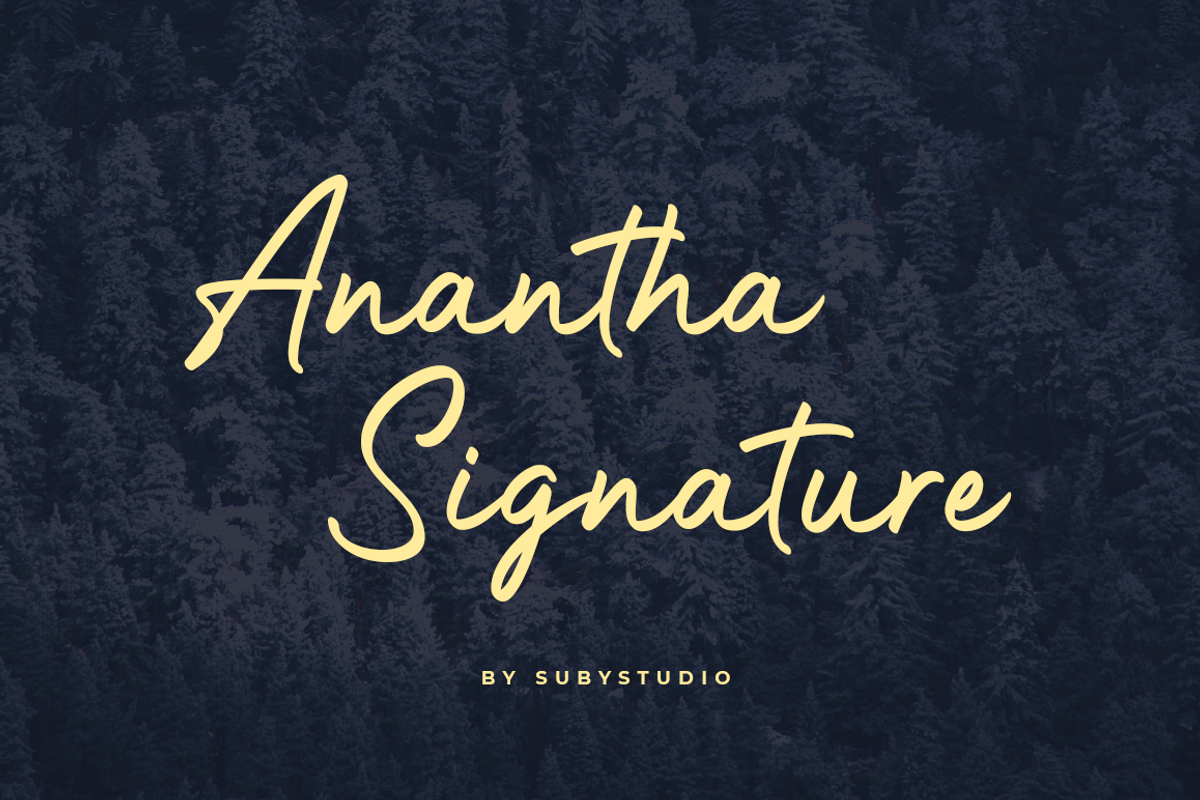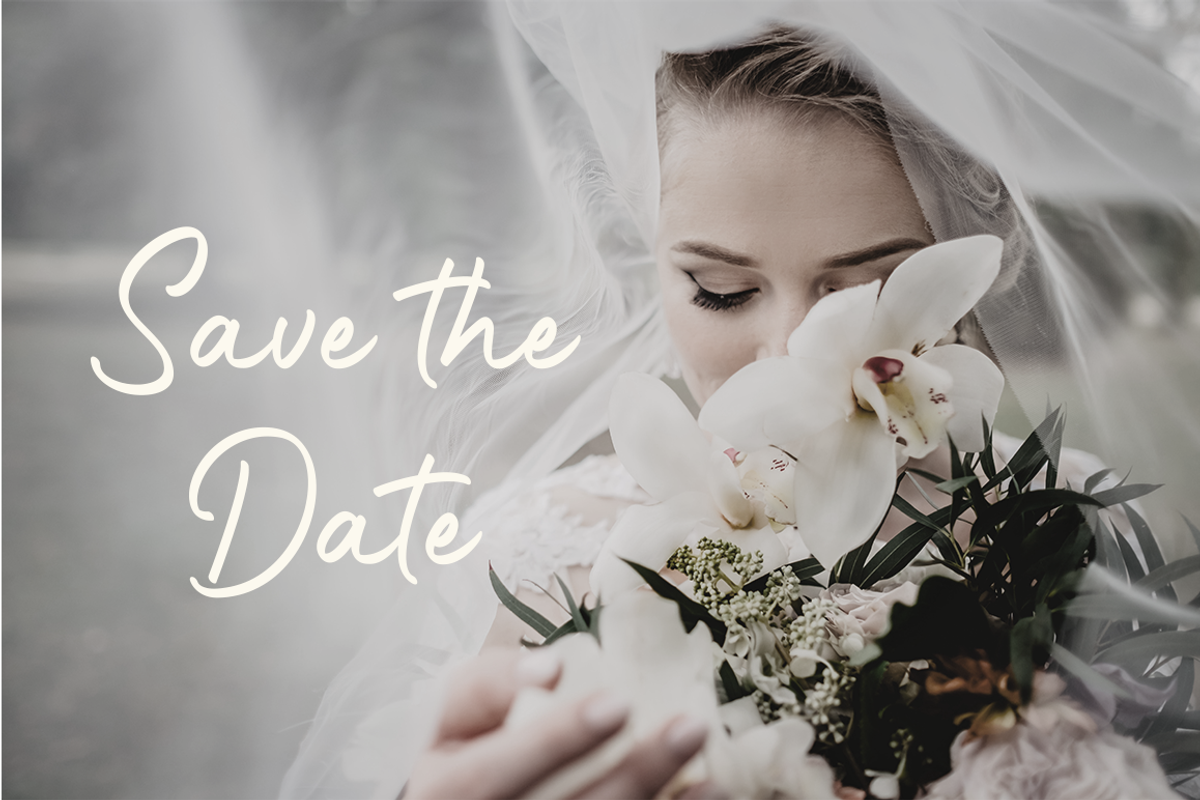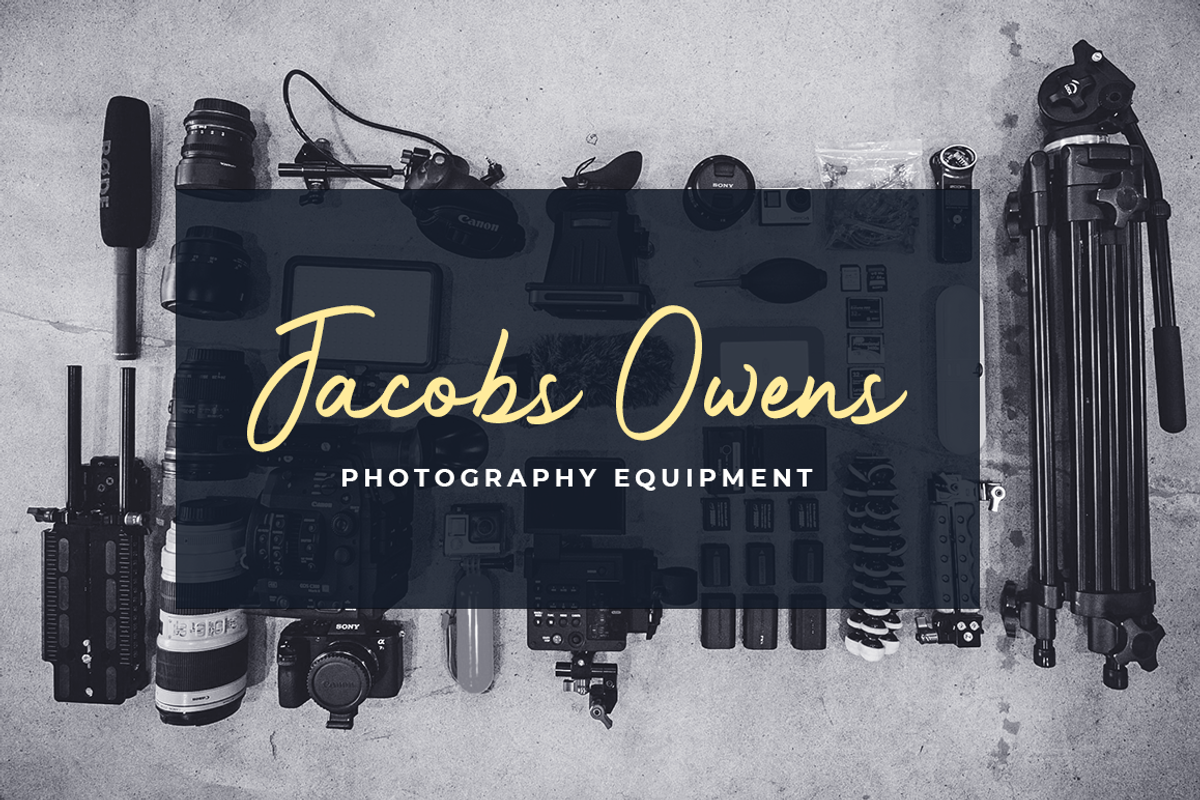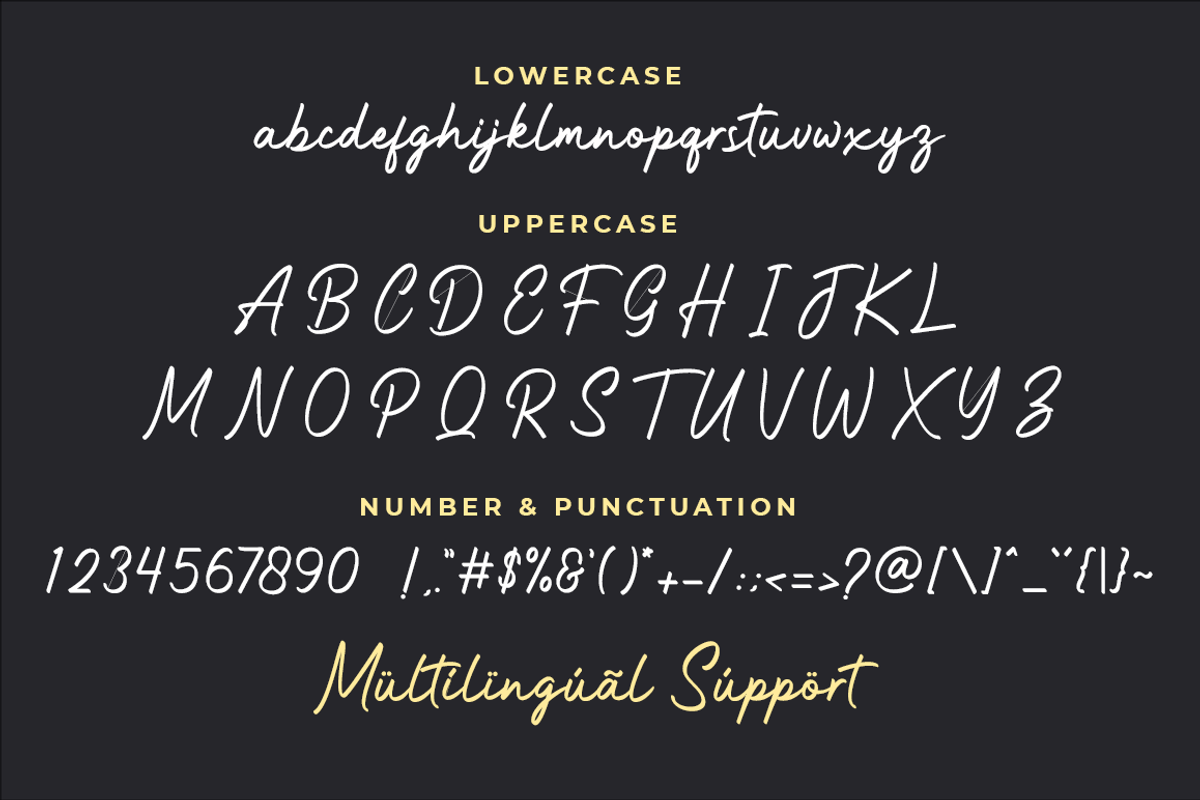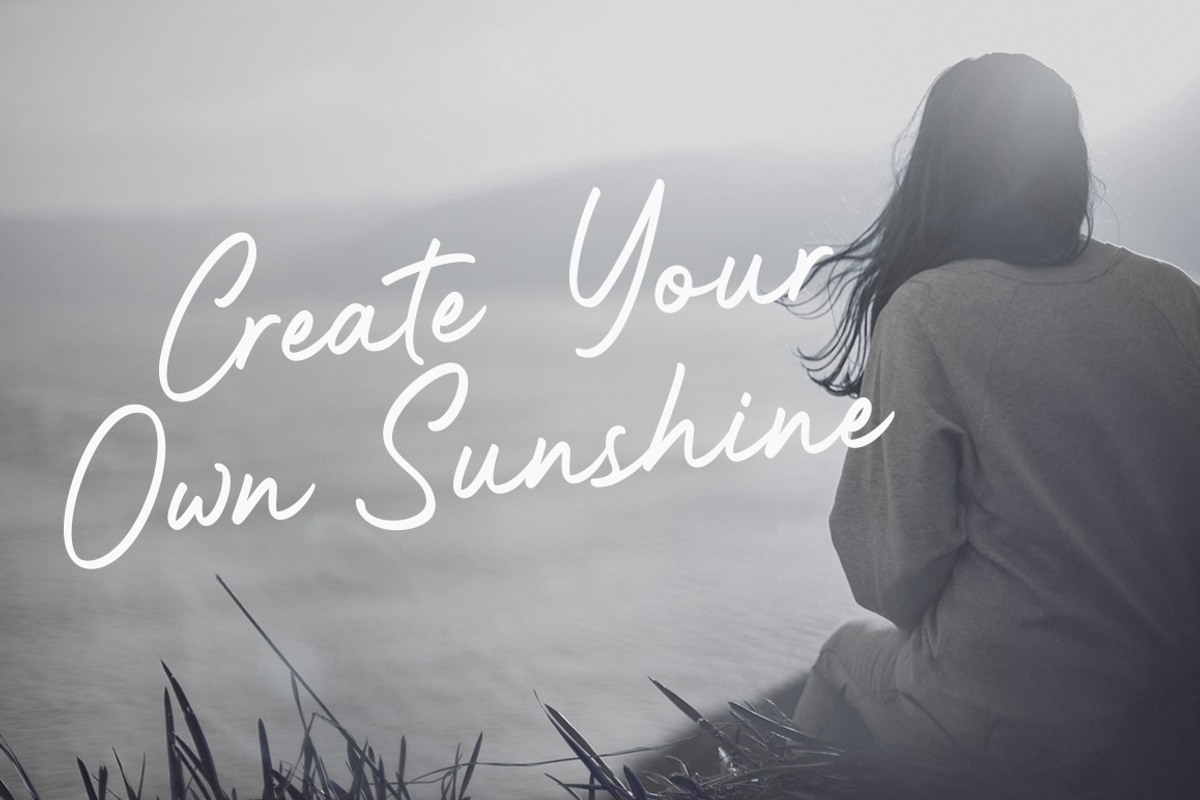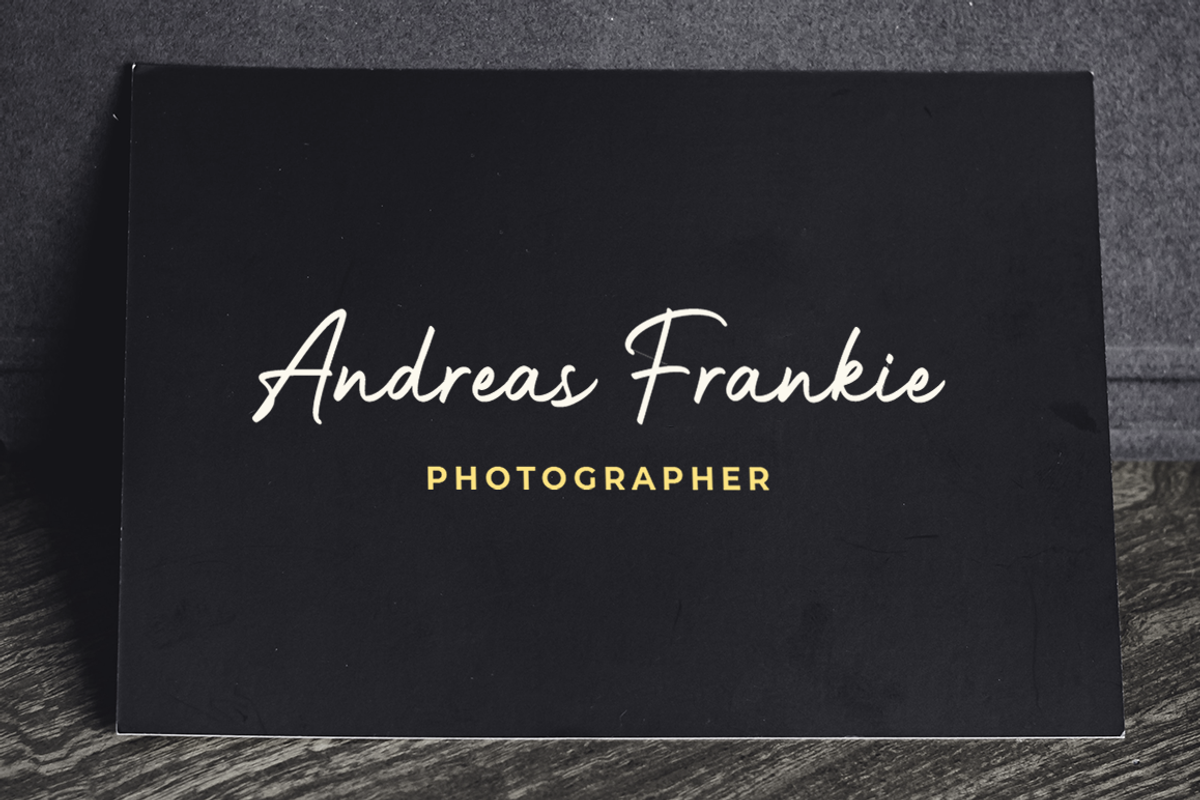
Anantha Signature
Anantha Signature is handwritten font in signature style. It is perfect for creating signature logos or logo signature and watermarks for photography, branding, etc.